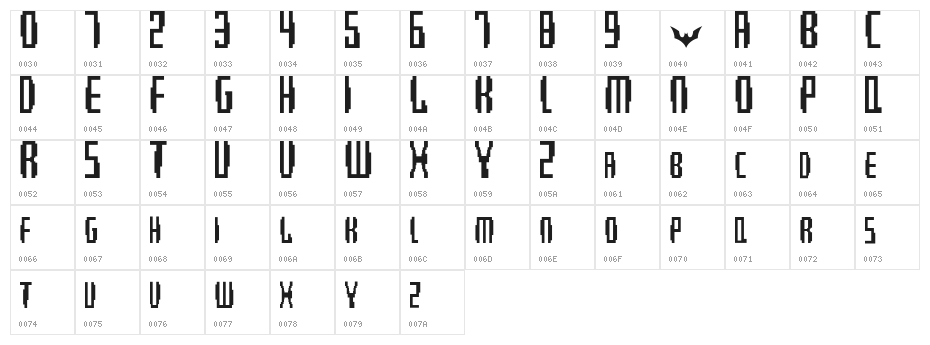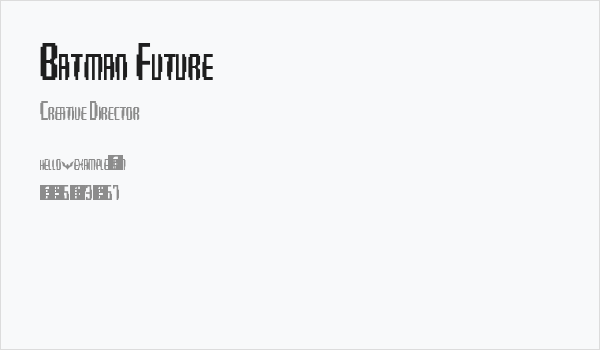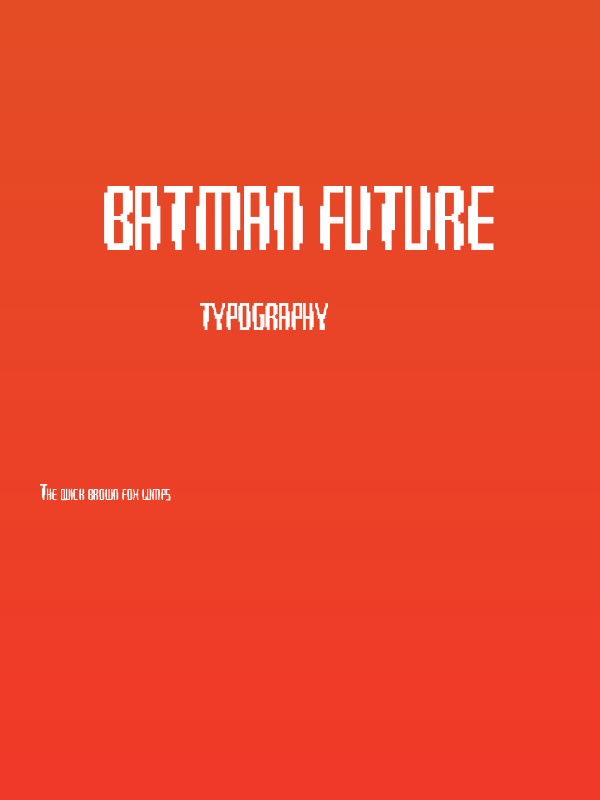
Batman Future Font
Batman Future Description
This font features a bold, geometric design with a futuristic aesthetic. The characters are constructed with sharp angles and straight lines, creating a blocky and digital appearance. The uppercase and lowercase letters maintain a consistent height, giving the font a uniform look. The numbers and special characters follow the same design principles, ensuring a cohesive style throughout. The font's unique structure makes it stand out, ideal for projects that require a modern and edgy feel.
Overall StyleFuturistic, Digital
Proposed ProjectsIdeal for sci-fi themed designs, video game titles, tech branding, and futuristic posters.